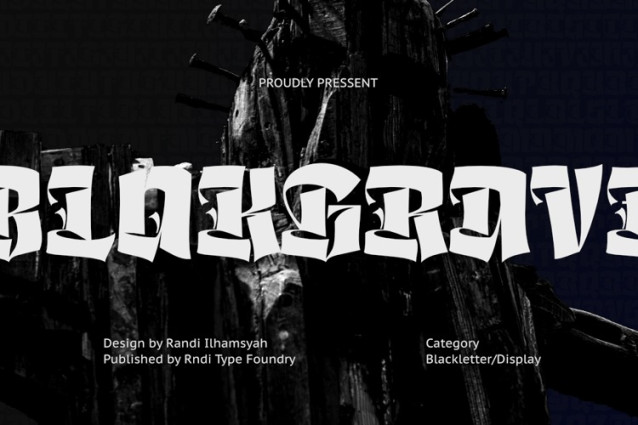
Blokgrave Font
Boldgrave Font is a striking blackletter-inspired display font that blends medieval gothic aesthetics with modern street-style energy. With its sharp edges, dramatic curves, and bold presence, Boldgrave is designed to make every headline unforgettable.
Perfect for posters, album covers, branding, gaming visuals, tattoo-inspired designs, apparel, and dark-themed creative projects, this typeface delivers a powerful visual identity with an edgy and rebellious character.
Whether you want to create a vintage gothic atmosphere or a contemporary urban statement, Boldgrave gives your designs a fearless and commanding look.